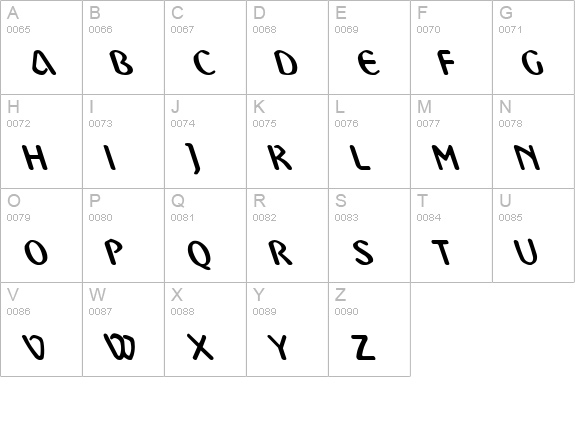
Abbey Medium Lefty is a balanced, medium-weight variant in the Abbey typeface family \xE2\x80\x94 well suited to sub-headlines, navigation, and balanced editorial work.
Abbey Medium Lefty is a charming and elegant font that brings a touch of sophistication to any design project. With its unique left-leaning slant, this font adds a creative twist to your text, making it stand out from the crowd. The medium weight of the font strikes the perfect balance between boldness and subtlety, making it versatile for a wide range of applications. Best of all, Abbey Medium Lefty is available for free download at FontsMarket.com. This means you can easily add this stylish font to your collection without breaking the bank. Whether you're working on a branding project, poster design, or any other creative endeavor, Abbey Medium Lefty is sure to elevate your work with its timeless appeal and distinctive flair. Download it today and unleash your creativity with this beautiful and freely available font.